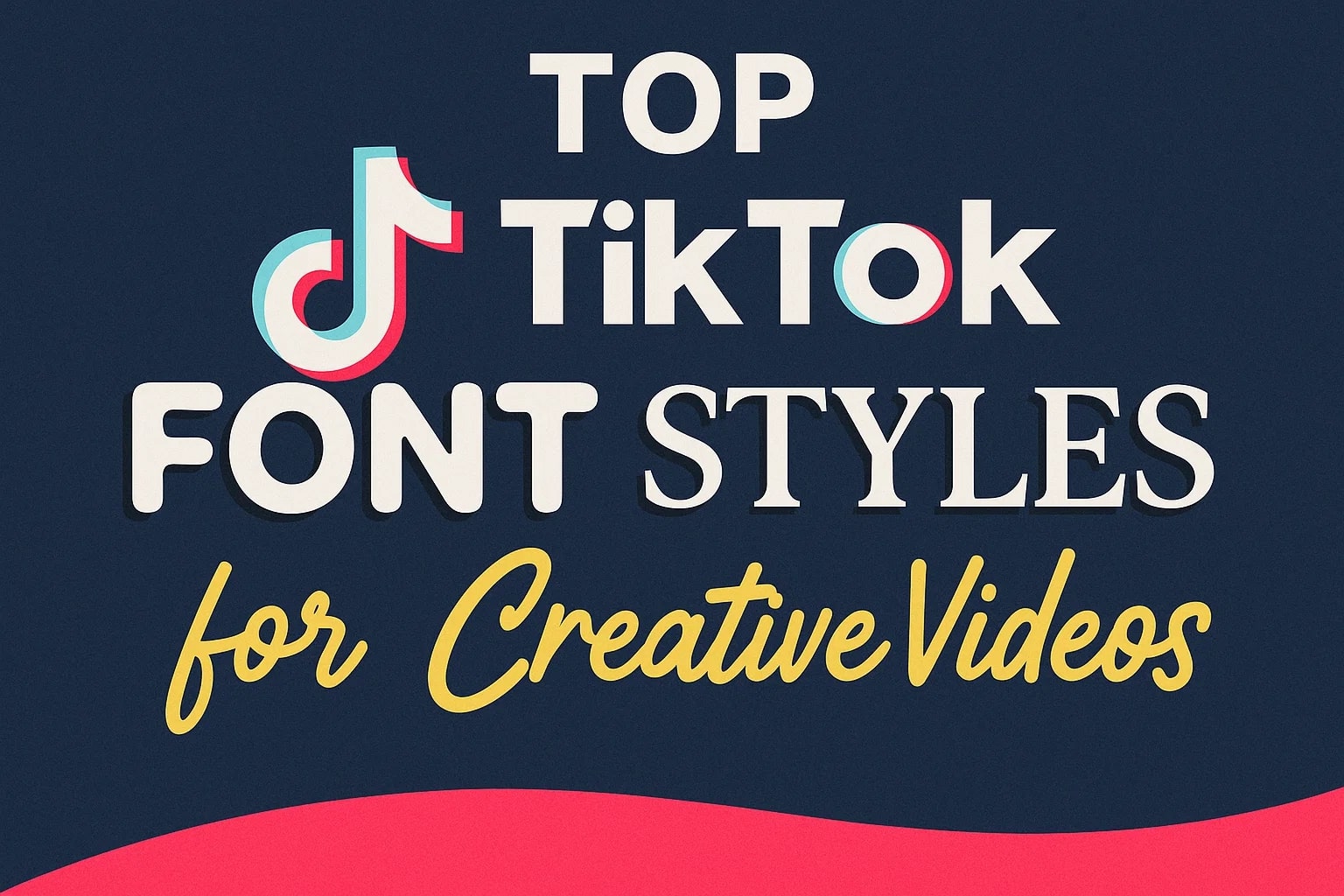
15 Best TikTok Fonts for Videos in 2026: Selection & Customization Guide
Customizing TikTok fonts requires using web-based generators for copy-paste profile text or Wondershare Filmora V15 on desktop for synchronized, animated in-video captions.
● Native font choices have specific conditional limits, such as Typewriter formatting struggling in long paragraphs and Bebas Neue remaining unreadable at small text sizes.
In the digital landscape, fonts can make or break your TikTok's vibes. Ever wondered which font style can grab the viewer's attention? The correct font style can help you highlight your message and add personality to your content. From trendy to a special style, various font generators enable users to make their videos popular. This article will help you learn about TikTok captions fonts, and the tools to customize your creative fonts.
Part 1. Top 15 Font Outlook Options for TikTok Captions
There is an extensive library for font styles in TikTok; the top 15 best font outlook options are discussed in the following:
1. Classic Font Style
The Classic font is used as a default style, which is straightforward and easily readable. It can be freely used for any video type, such as comedy clips and vlogs. This semibold font style is not suitable for branding and luxury content.
classic font style tiktok font
2. Typewriter Font Style
One of the best TikTok fonts, the Typewriter font style gives a vintage and retro vibe to short quotes and punchy lines. It is challenging to add this font to longer paragraphs, as it offers generous spacing between each character. The typewriter font style is best suited for personal use or commercial videos.
typewriter font tiktok videos
3.Handwriting Font Style
The handwriting font is similar to natural script writing and cannot be read if its size is too small. This font adds a cottagecore spice and emphasis when used in titles, adding a personal touch. Handwriting font is best suited for fashion and beauty content.
handwriting font style for tiktok videos
4. Serif Font Style
The serif font outlook is bold and classy and brings aesthetics to the text. The sophisticated font style is used in detailed videos for extensive captions. It looks very formal for the casual content and is mainly used for wedding invites.
serif font style tiktok video
5. Helvetica Bold Caption Font
Helvatica is recognized for its modern appeal and clarity. It stands out for the content creators who want to convey their messages without distraction. This font style is suitable for any theme and is easily readable and versatile.
helvetica bold caption font style
6. Neon Caption Outlook
Neon style is recognized as one of the best fonts for TikTok, used in bold and vibrant captions with geometric dimensions. People usually use this style whenever they create short statements for their energetic content. This font is not publicly available to the TikTok audience and is generated by different font generator tools.
neon caption outlook for tiktok videos
7. Script Caption Font
This font style is ideal for casual and creative content related to food, as it injects warmth and personality into the videos. However, it should not be used for dense and formal content, as it is recognized as a fun brush handwriting. Script font offers extensive font weights, such as light for logos and bold for social media graphics.
Conclusion
To sum it up, customizing your TikTok captions fonts is very easy and accessible to make your videos unique and stunning. Nowadays, you can match your mood with your content and highlight your message by using different font styles generated by the top 4 font generators, as discussed in the article. However, Filmora stands out as a top-tier choice among all to generate stunning font styles to pop your TikTok videos.